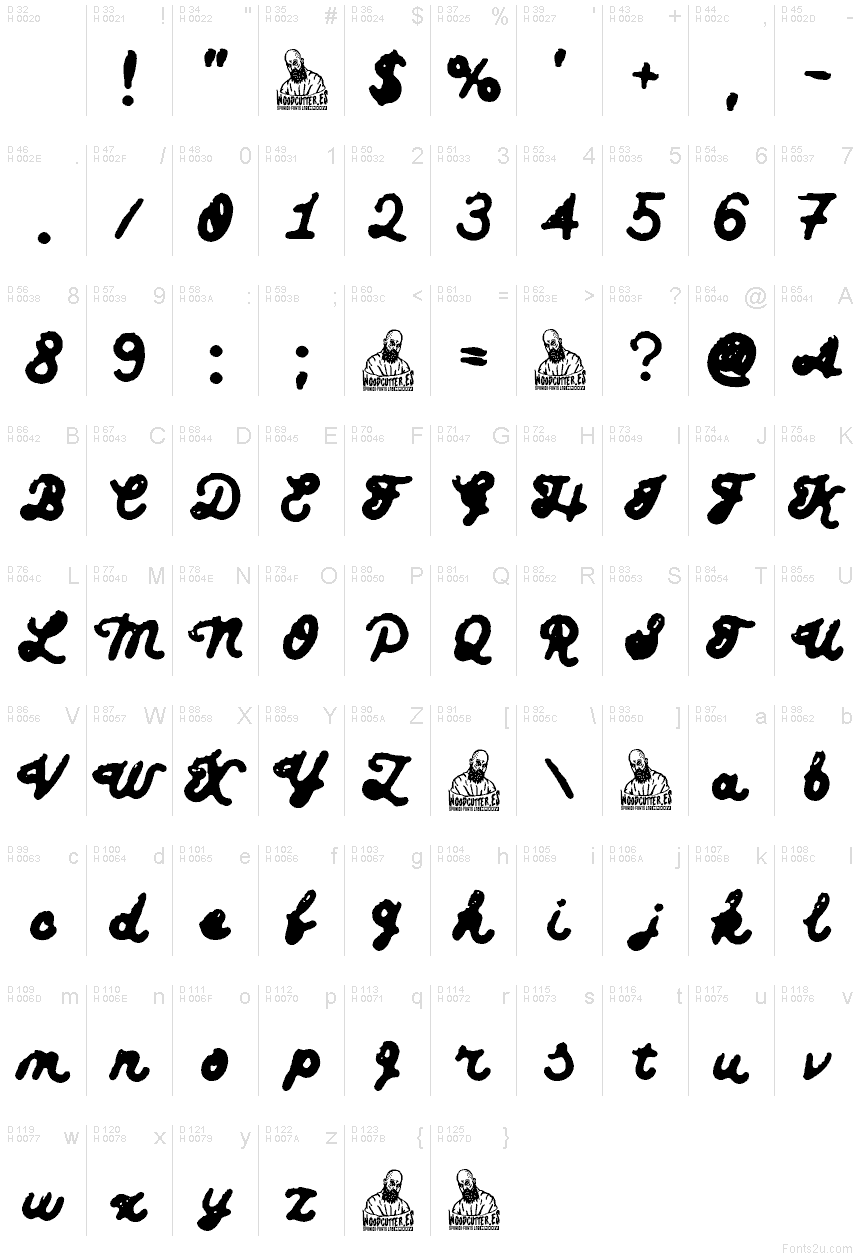
Brooklyn Shop
Brooklyn Shop font by Woodcutter is a free bold eroded script font. Its defining trait is that inky, puddled stroke—thick, rounded, and speckled with worn “blowouts” that look like sun-faded paint and ink bleeds. The rhythm feels hand-lettered and a little unruly, with a rolling baseline that adds shop-sign warmth while the erosion brings street grit. It’s chewy, high-impact, and impossible to ignore.
Using Brooklyn Shop, headlines jump off kraft textures, chalkboard backdrops, or gritty photos. It shines on coffee roastery branding, vintage signage, craft labels, streetwear graphics, limited-run posters, and bakery menus. This free font works best large, where the distressed details can breathe; pair it with a clean condensed sans to handle small copy and let the script do the shouting.
Brooklyn Shop.